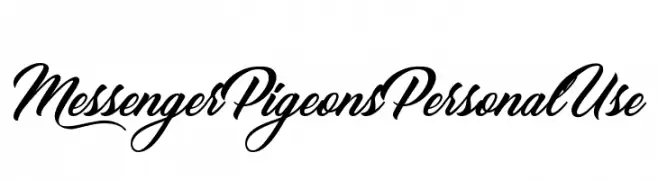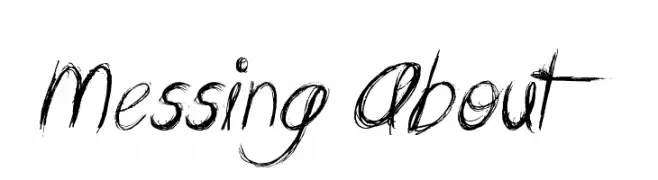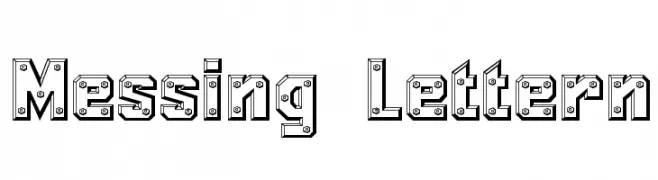
An elegant, flowing script font with ornate, calligraphic details.
A dynamic, brush-style font with expressive, textured strokes.
A bold, industrial font with a 3D effect and mechanical design.